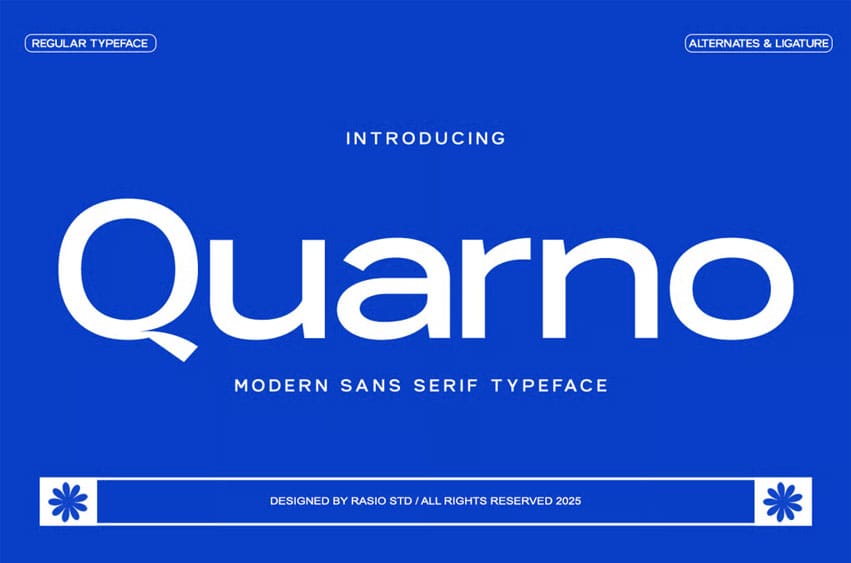
Quarno Font is a clean and contemporary sans serif typeface built for modern visual communication. With its geometric precision, rounded terminals, and balanced proportions, Quarno conveys clarity and confidence in every letterform. The design captures the spirit of modernist typography, combining simplicity with a distinctive character that works beautifully across digital and print media.
Featuring full uppercase and lowercase characters, numerals, punctuation, ligatures, and multilingual support, Quarno is ideal for professional branding, editorial design, and minimal corporate layouts. Its versatile style ensures legibility while maintaining a sleek and confident tone for any visual identity.